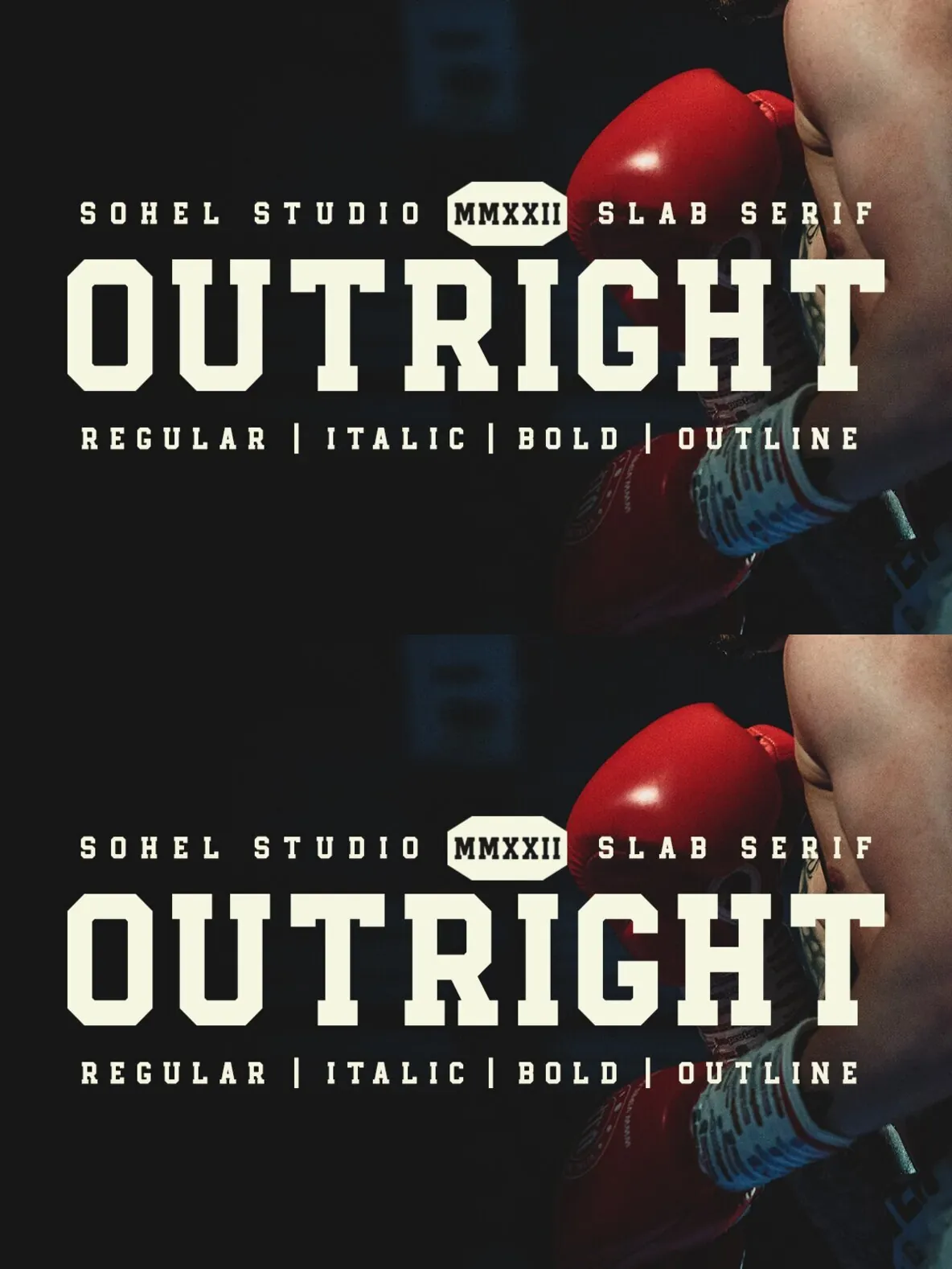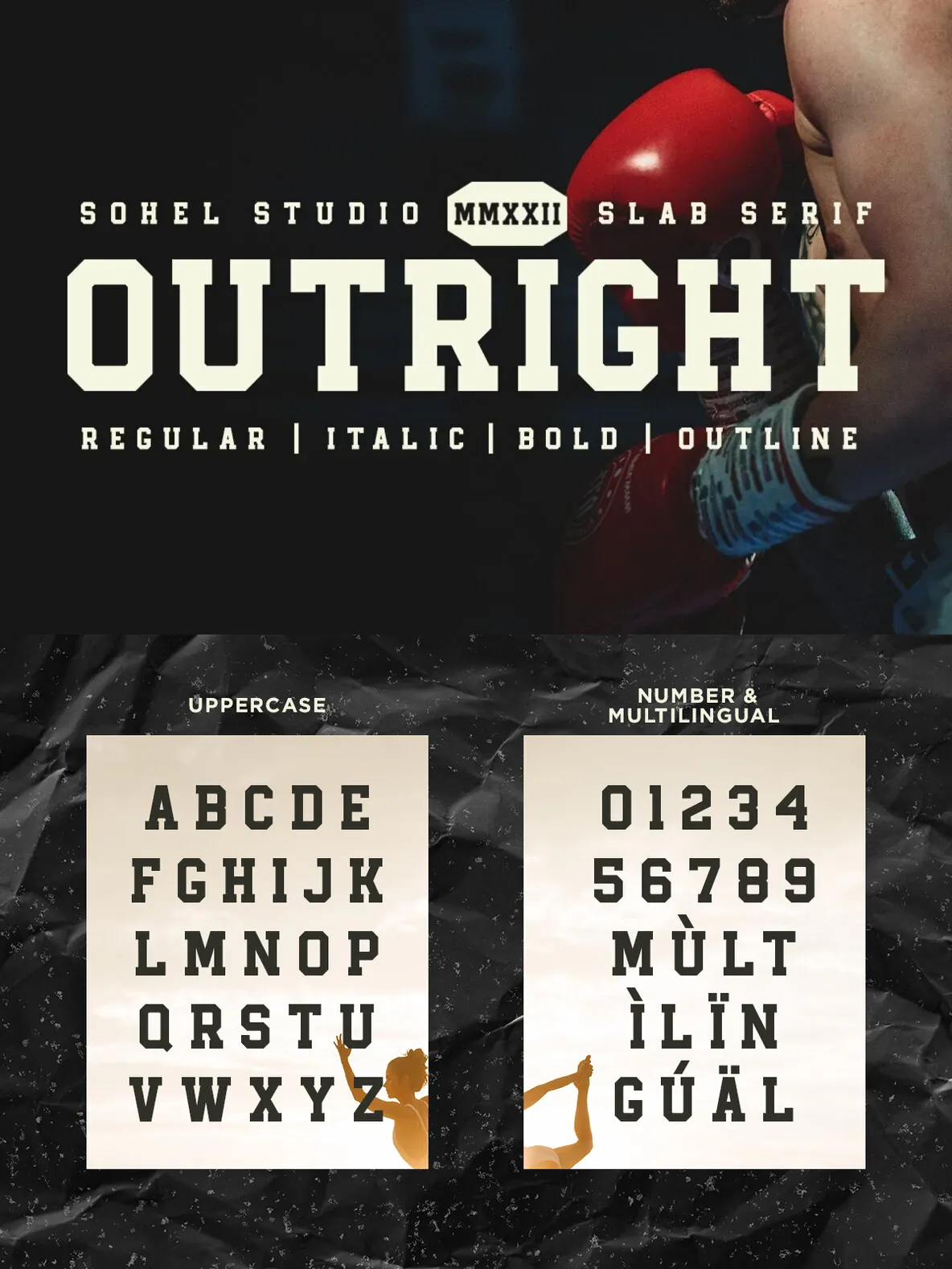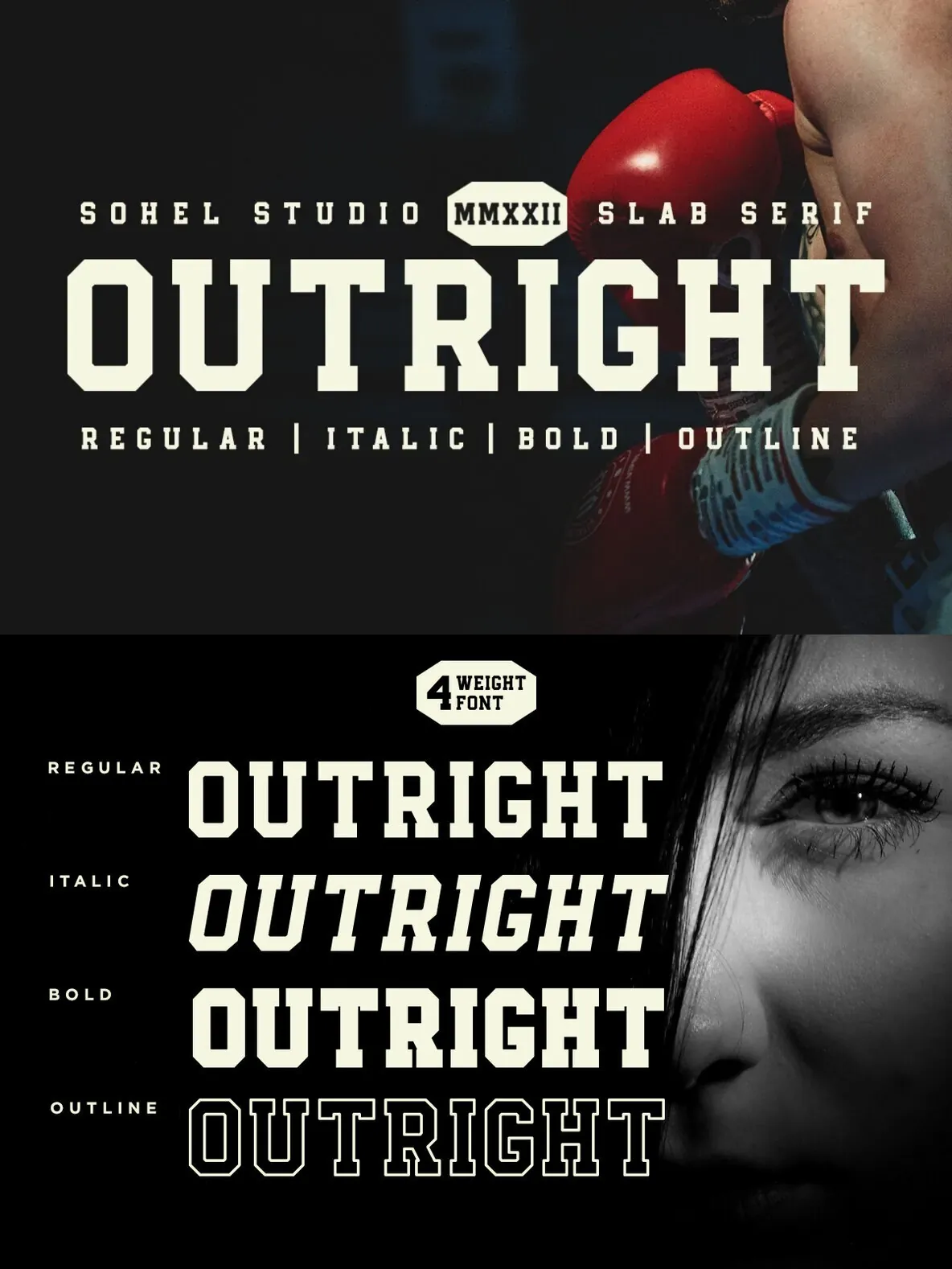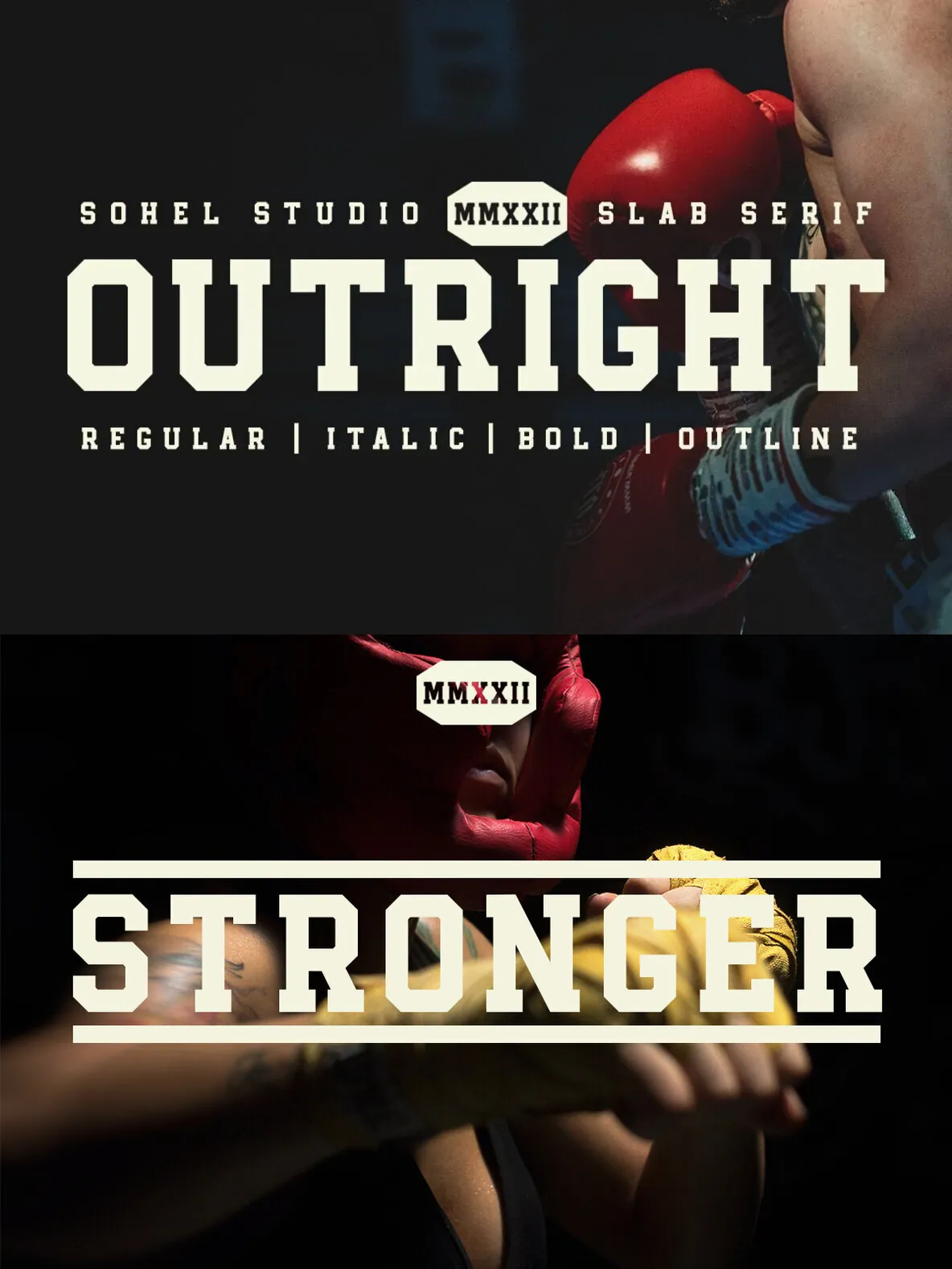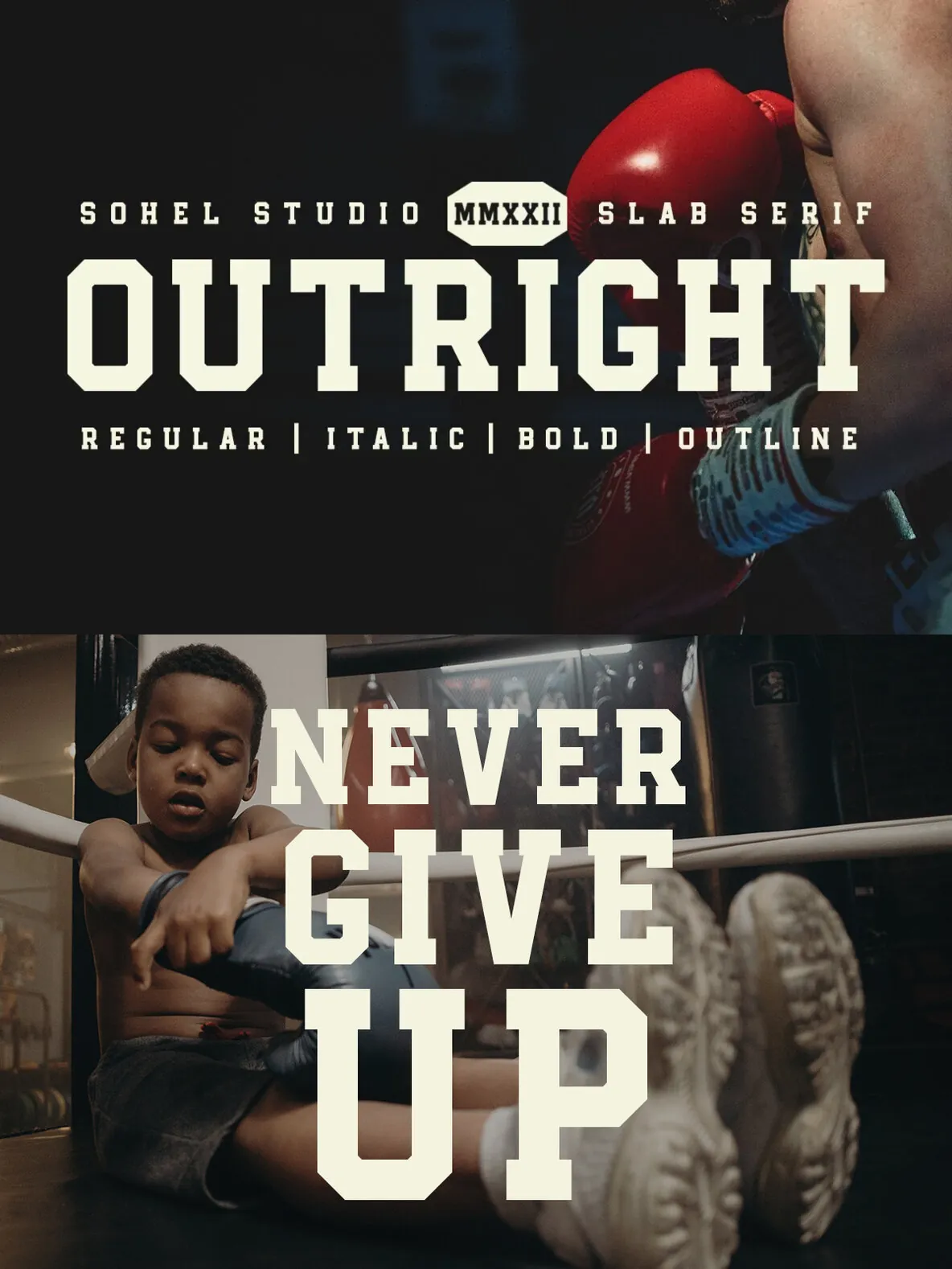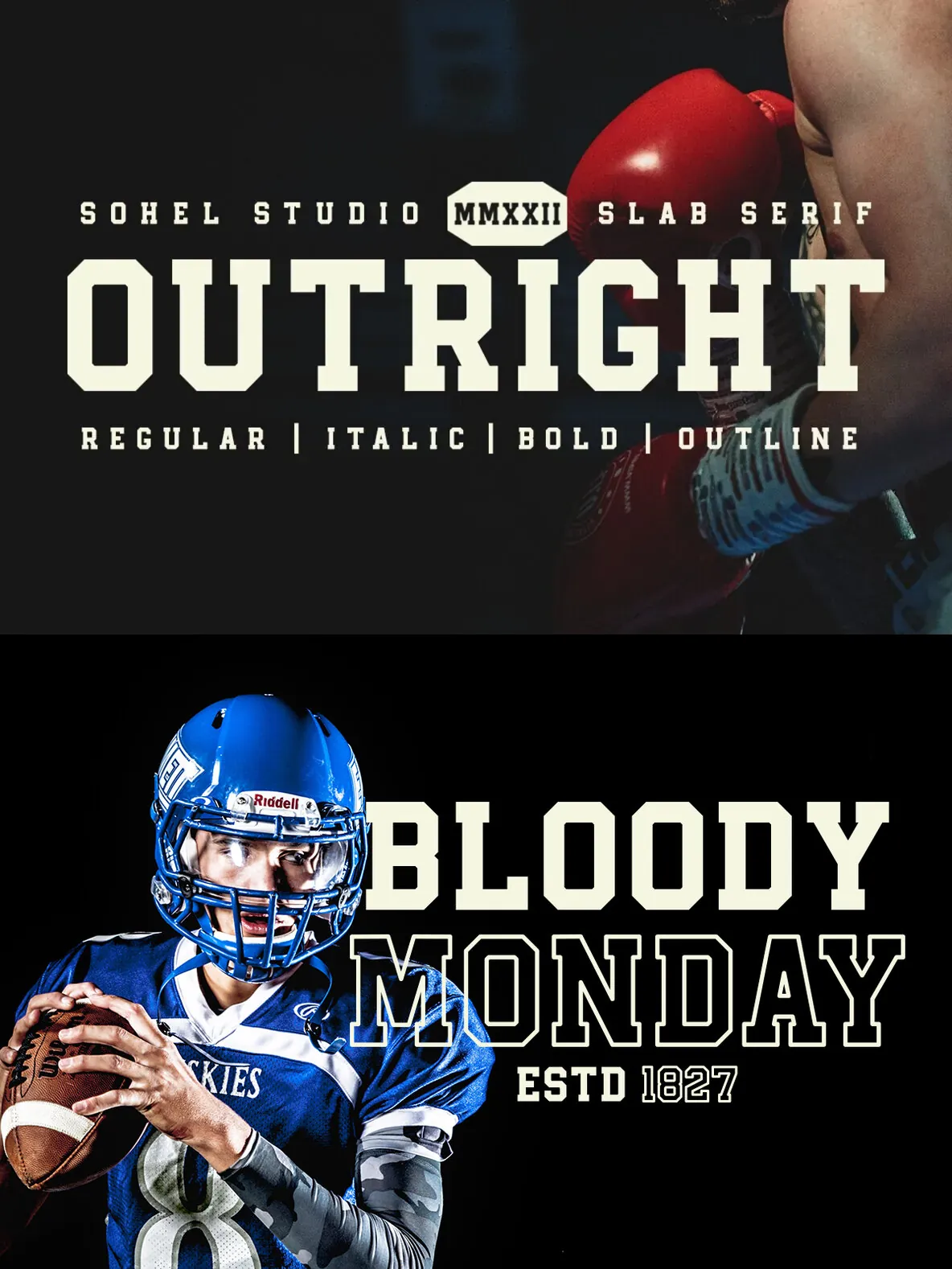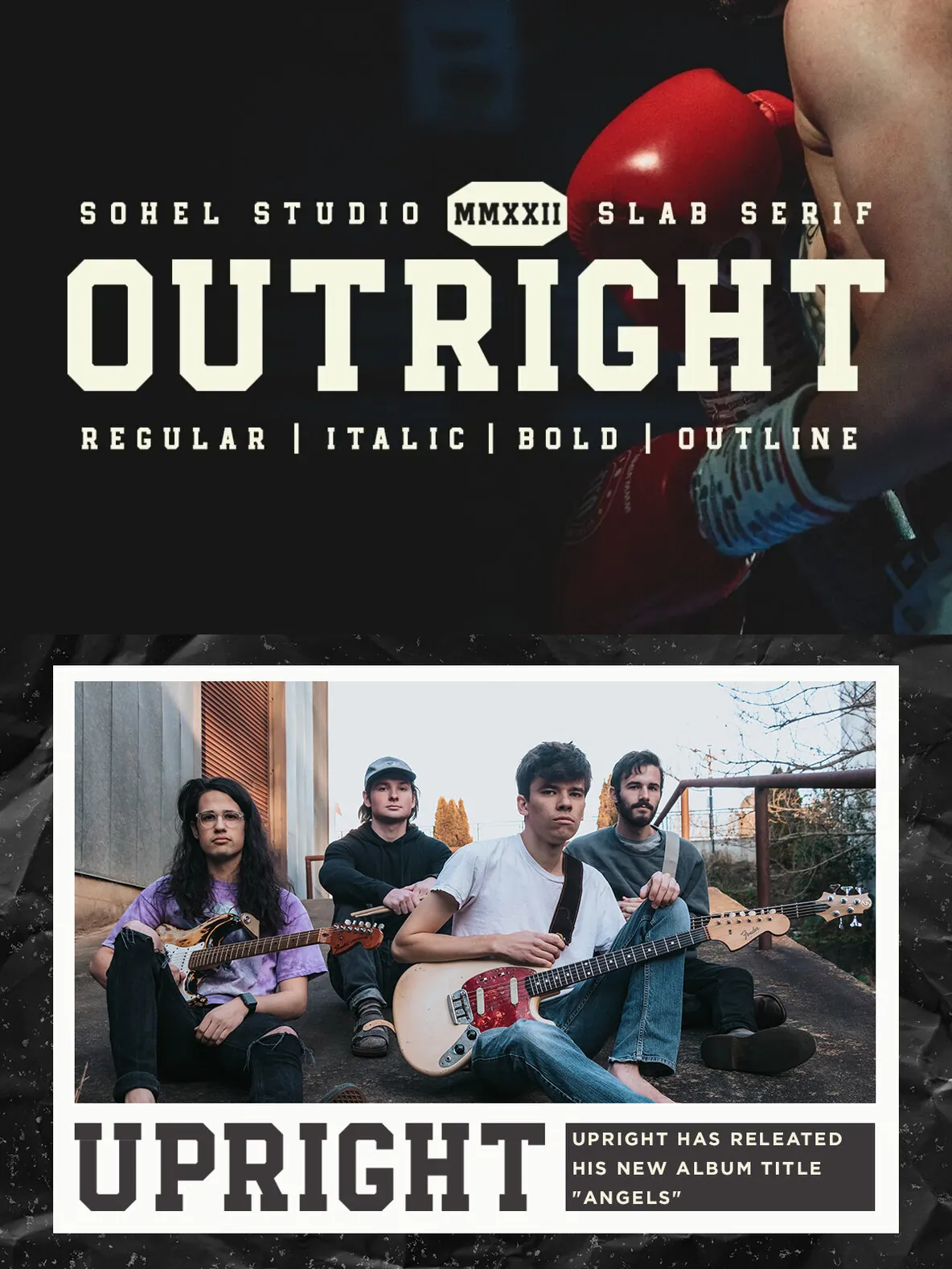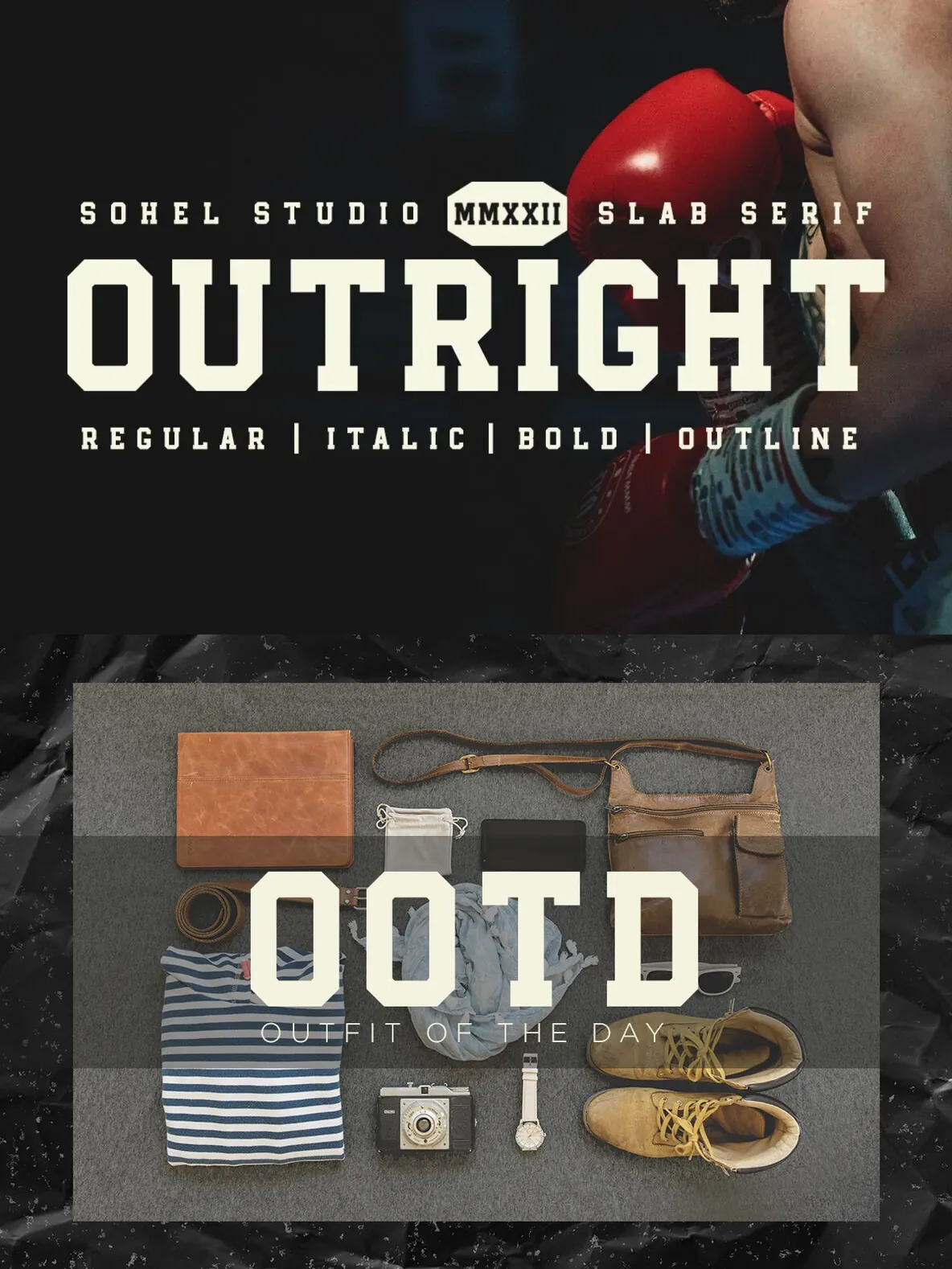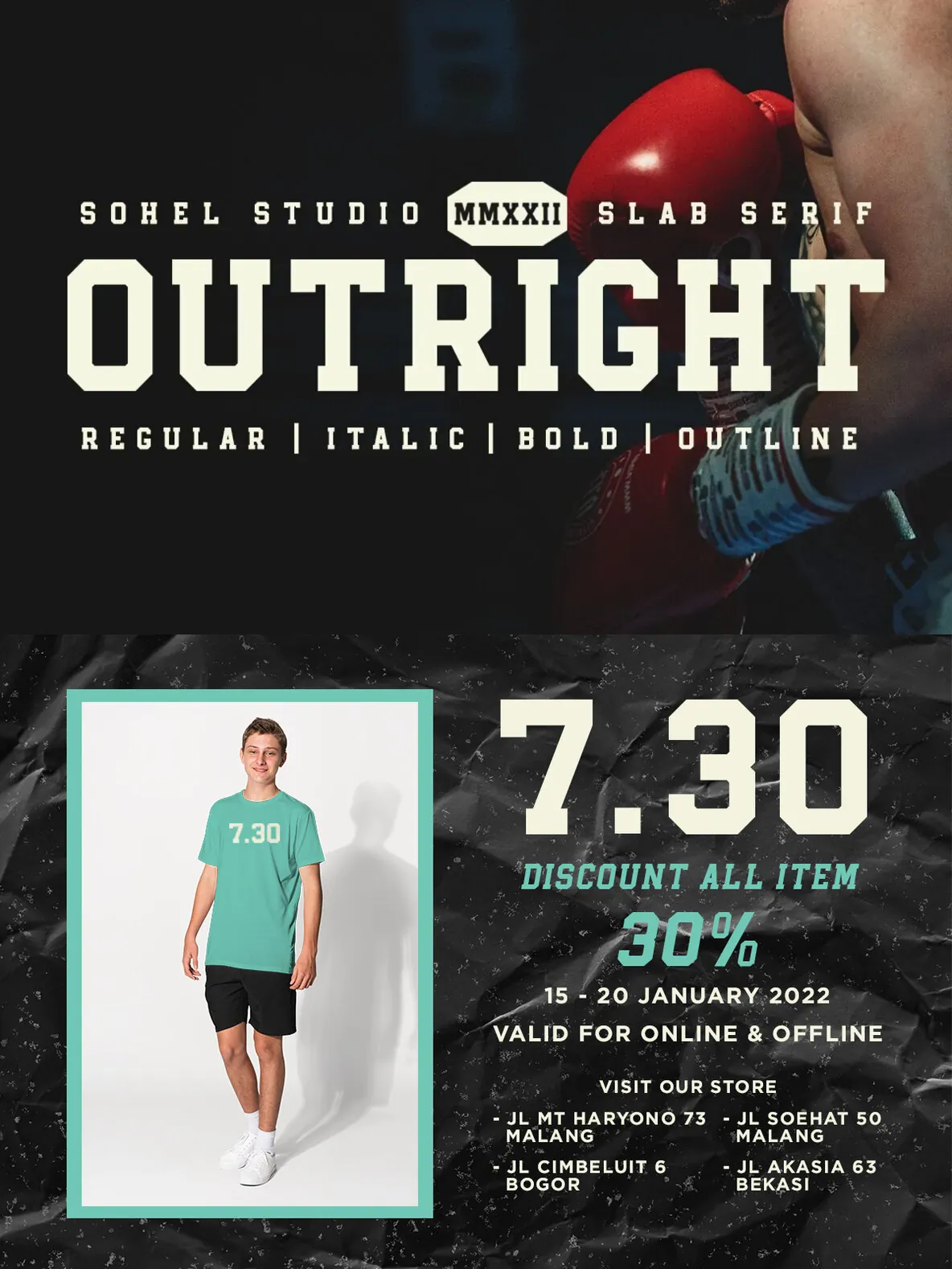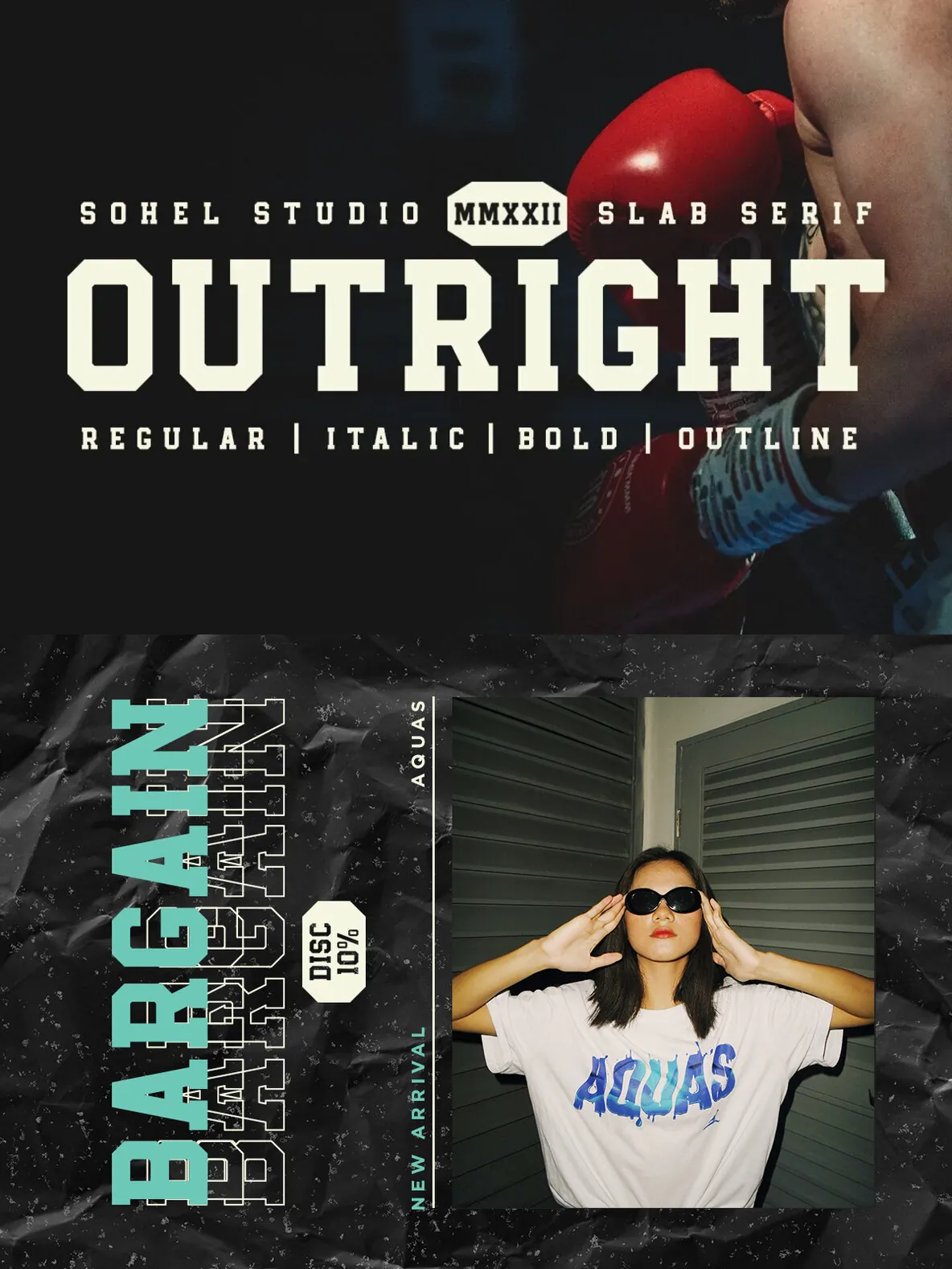
Outright Sport Font
Outright slab serif inspired by sporty design, vintage style with a touch of classic style. There are 4 different styles that you can apply in your design projects. This font is built with solid foundations, strong visuals, old-school movement, and a modern minimalist style. Outright is perfect for , Jersey , athletic, poster, branding projects, Logo design, Clothing Branding, product packaging, for magazine titles. for something with the theme of sports, album title,
Outright Features:
• 4 Weights font (Regular, Italic, Bold, Outline)
• Numerals & Punctuation
• Accented characters
• Multilingual Support